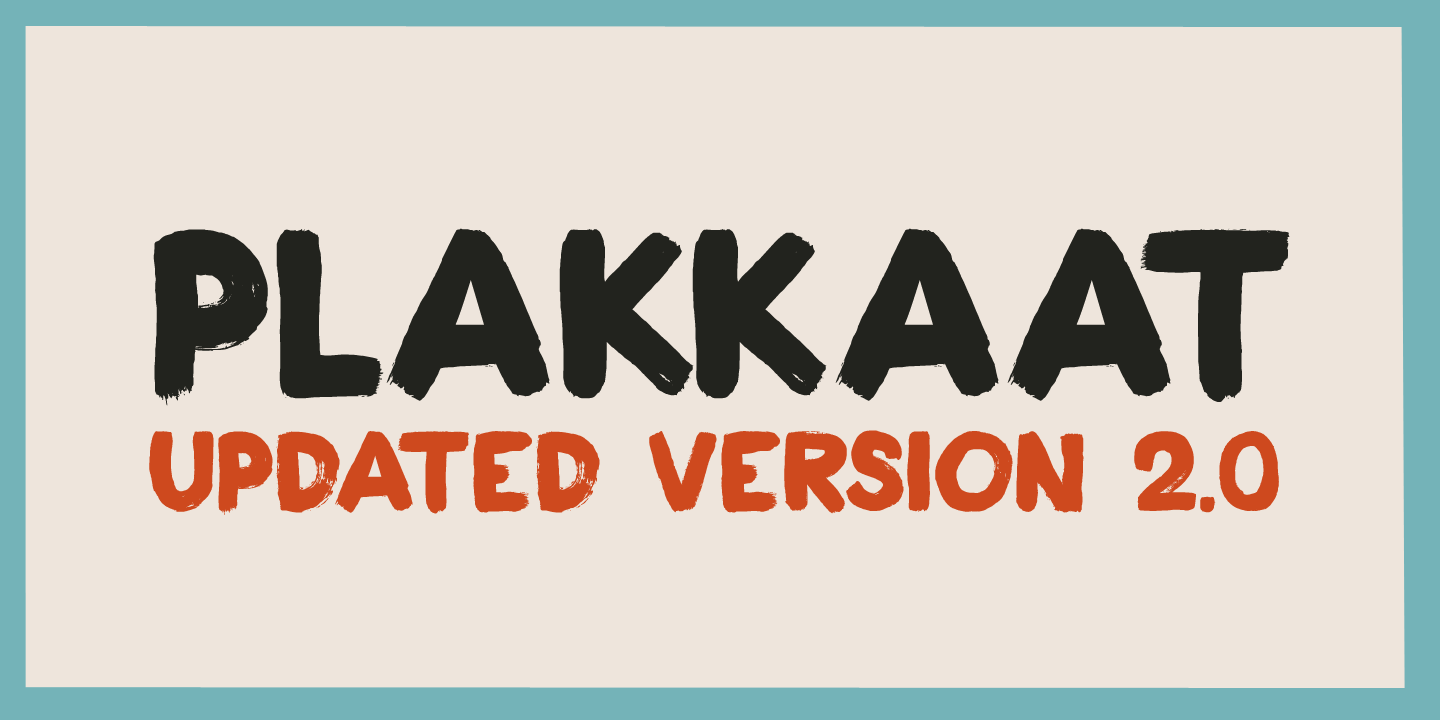
Plakkaat Font Free Download is a bold, industrial-inspired display typeface that commands attention with its strong, blocky letterforms. Perfect for posters, signage, logos, packaging, event flyers, and branding projects, this font brings a striking, utilitarian aesthetic to your creative work. Plakkaat Font is ideal for designs that need to be loud, clear, and impactful, evoking vintage poster typography with a modern twist.
With Plakkaat Font Free Download, you’ll receive a complete set of uppercase letters, numbers, and essential punctuation, offering flexibility for both print and digital applications. Whether you're designing bold headlines, creating packaging for a bold product line, or developing promotional materials, this font ensures readability while delivering a powerful visual punch.
Elevate your designs with Plakkaat Font Free Download. Its bold, industrial style makes it the perfect choice for projects that need strength, clarity, and visual authority.